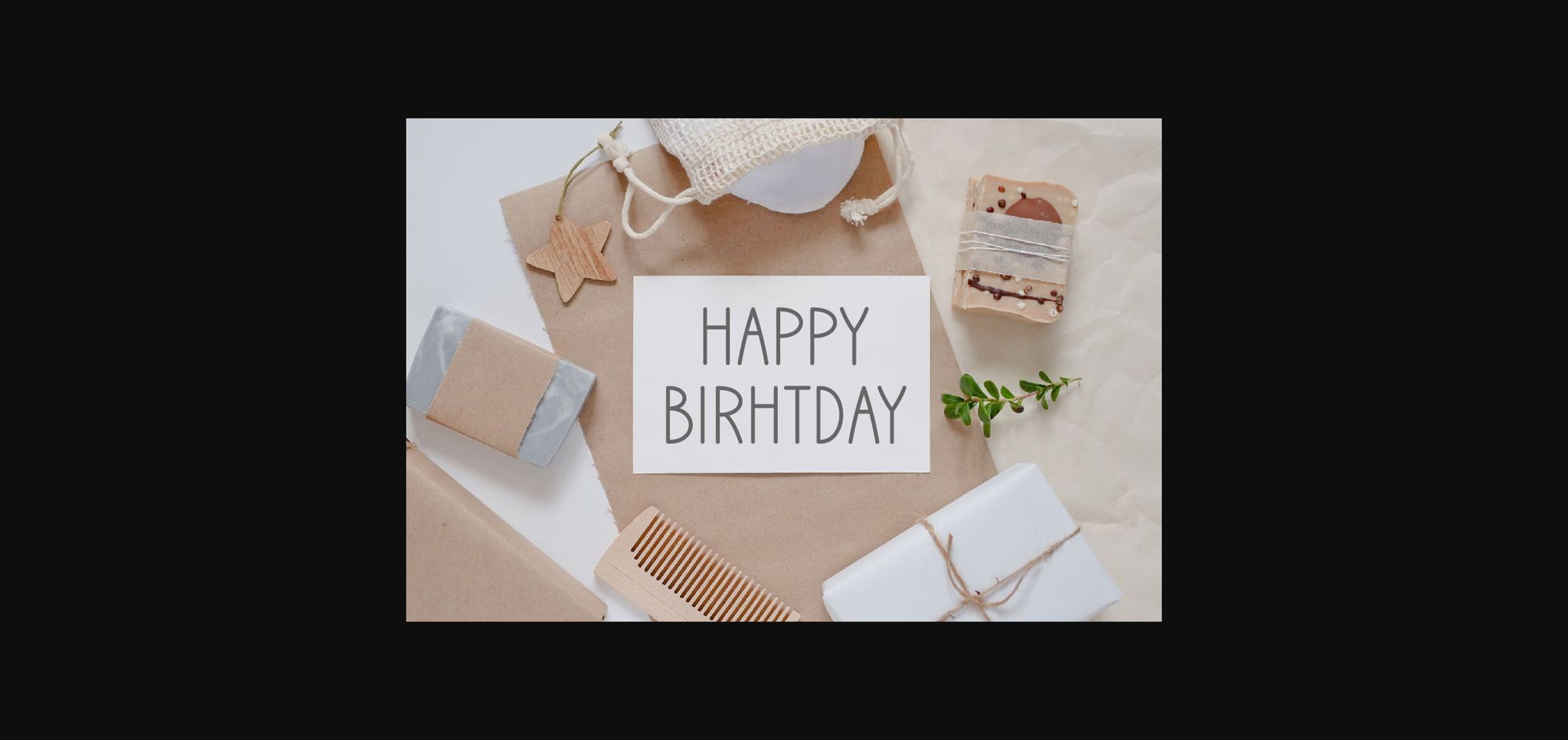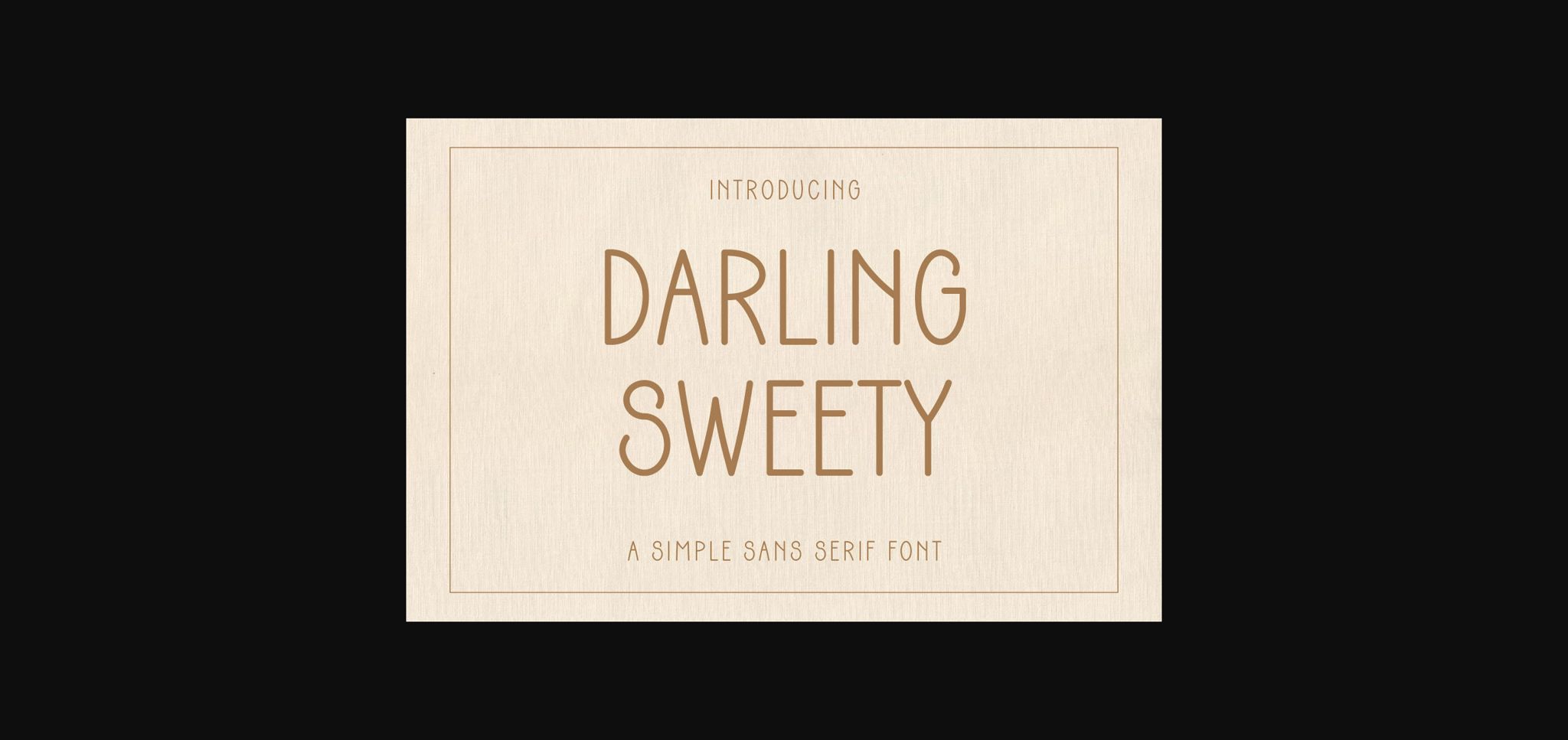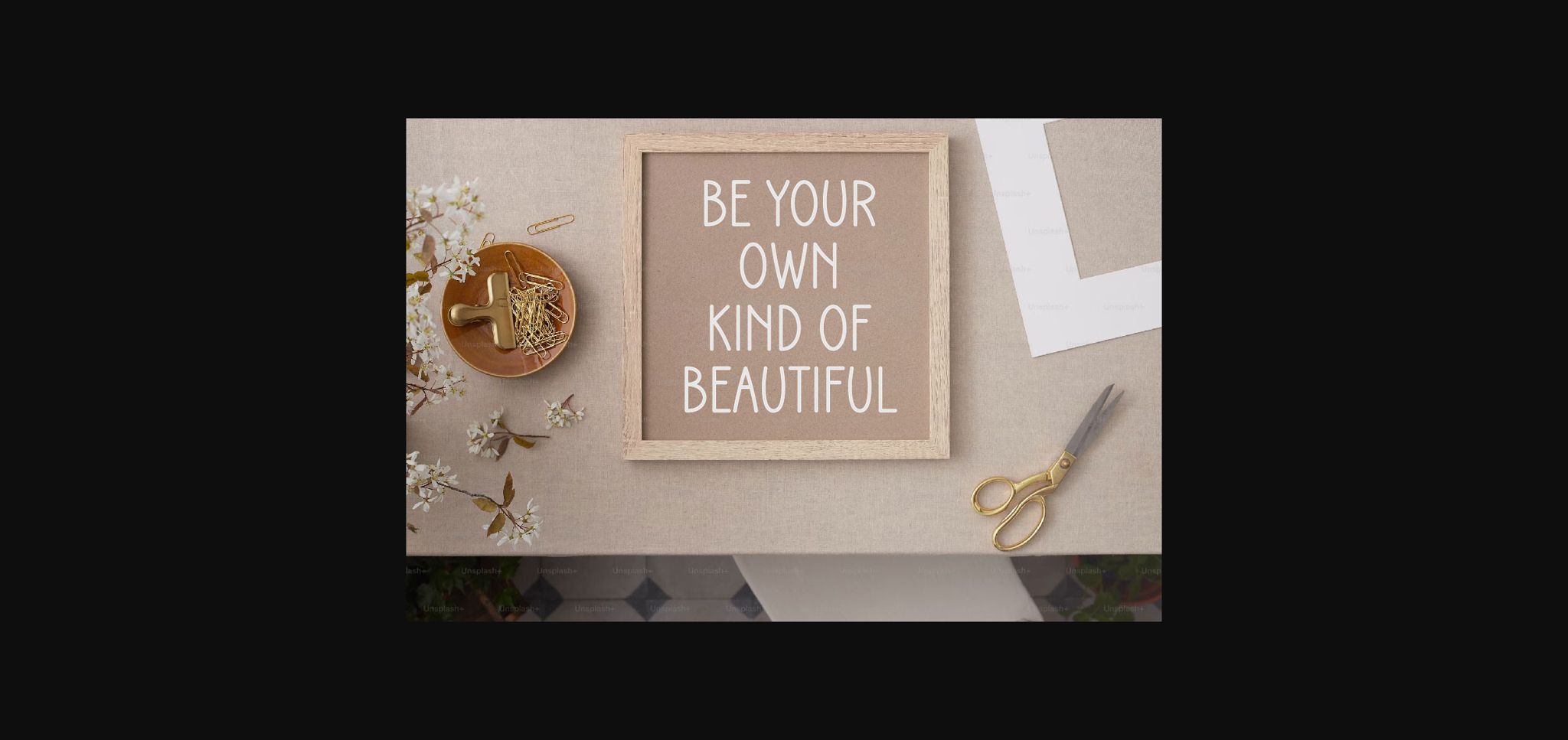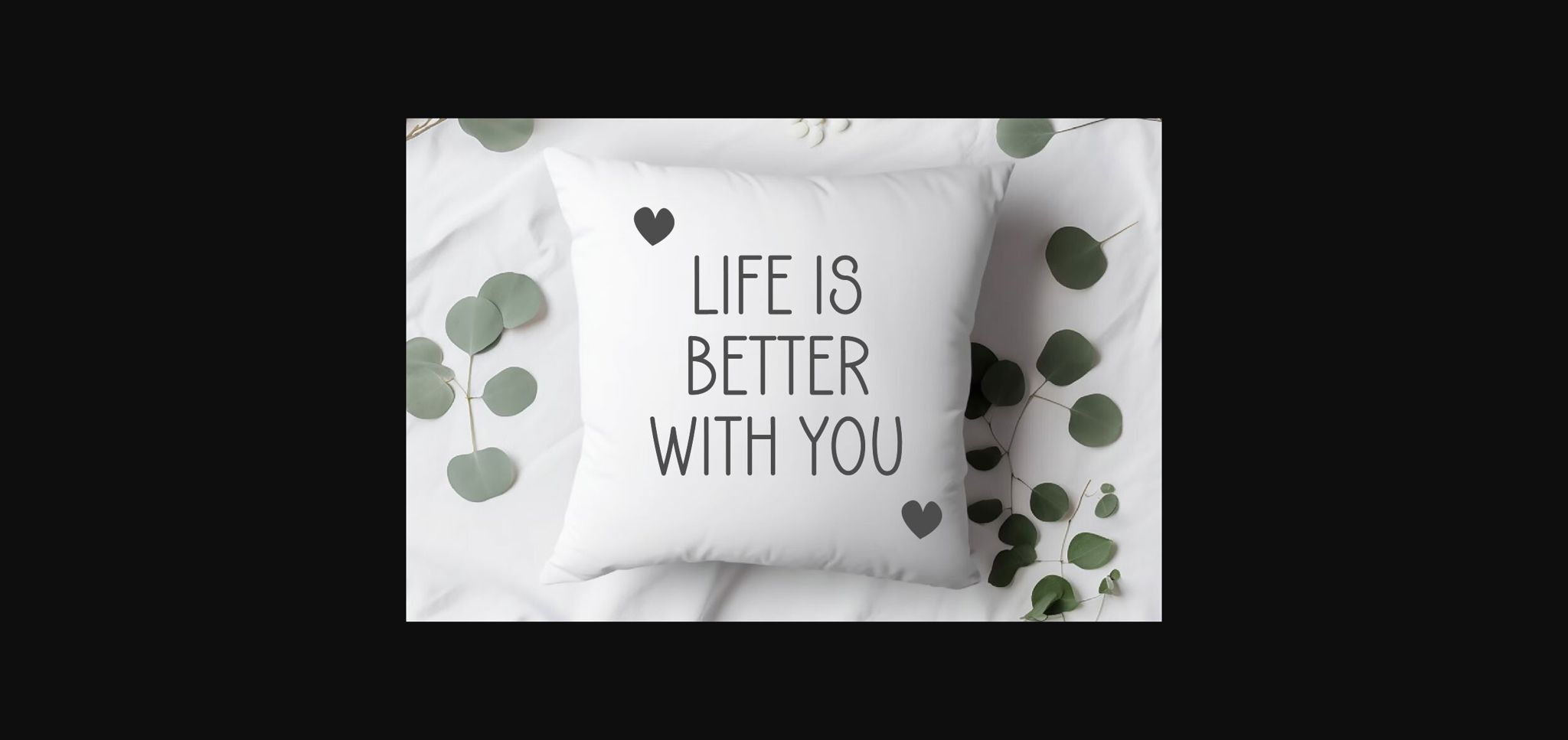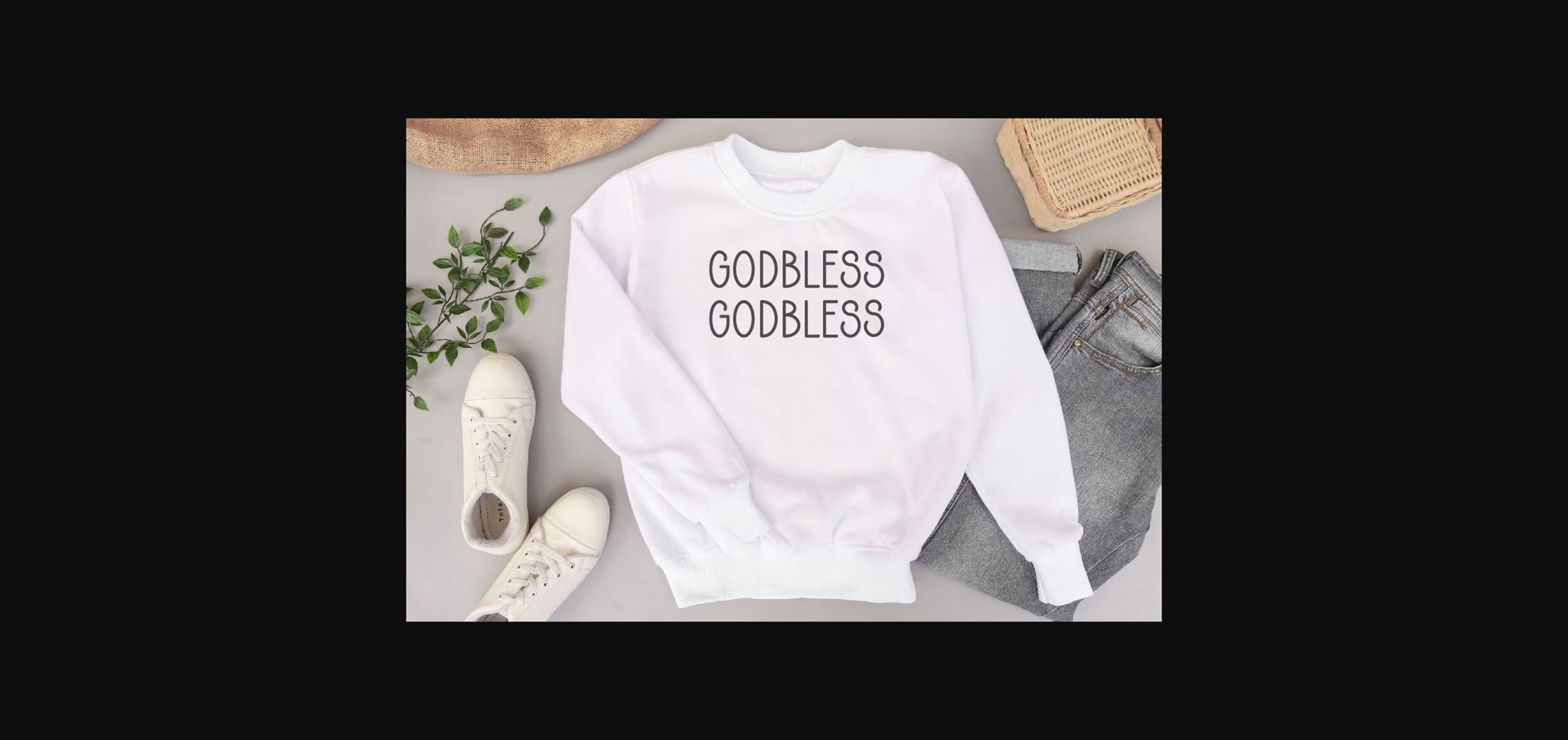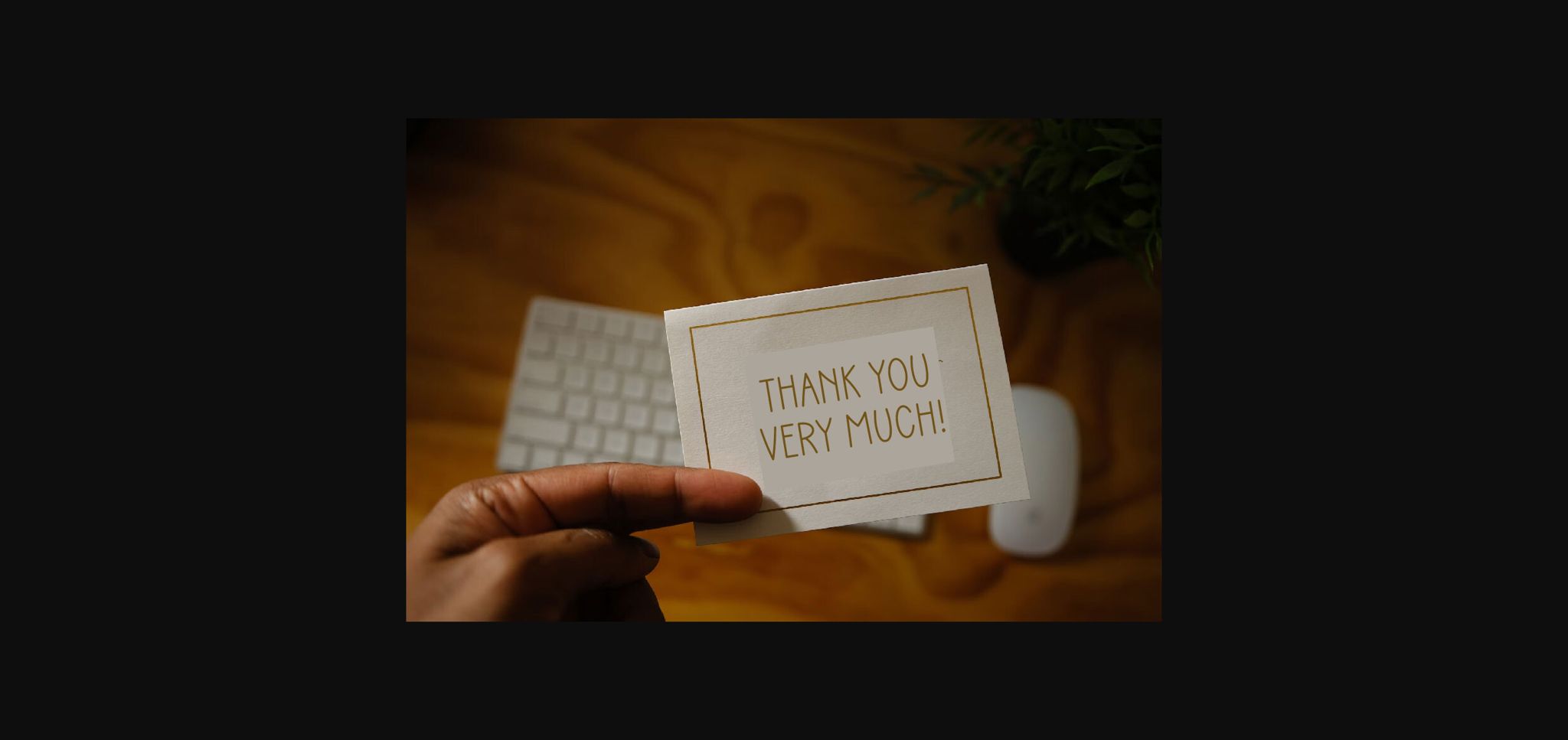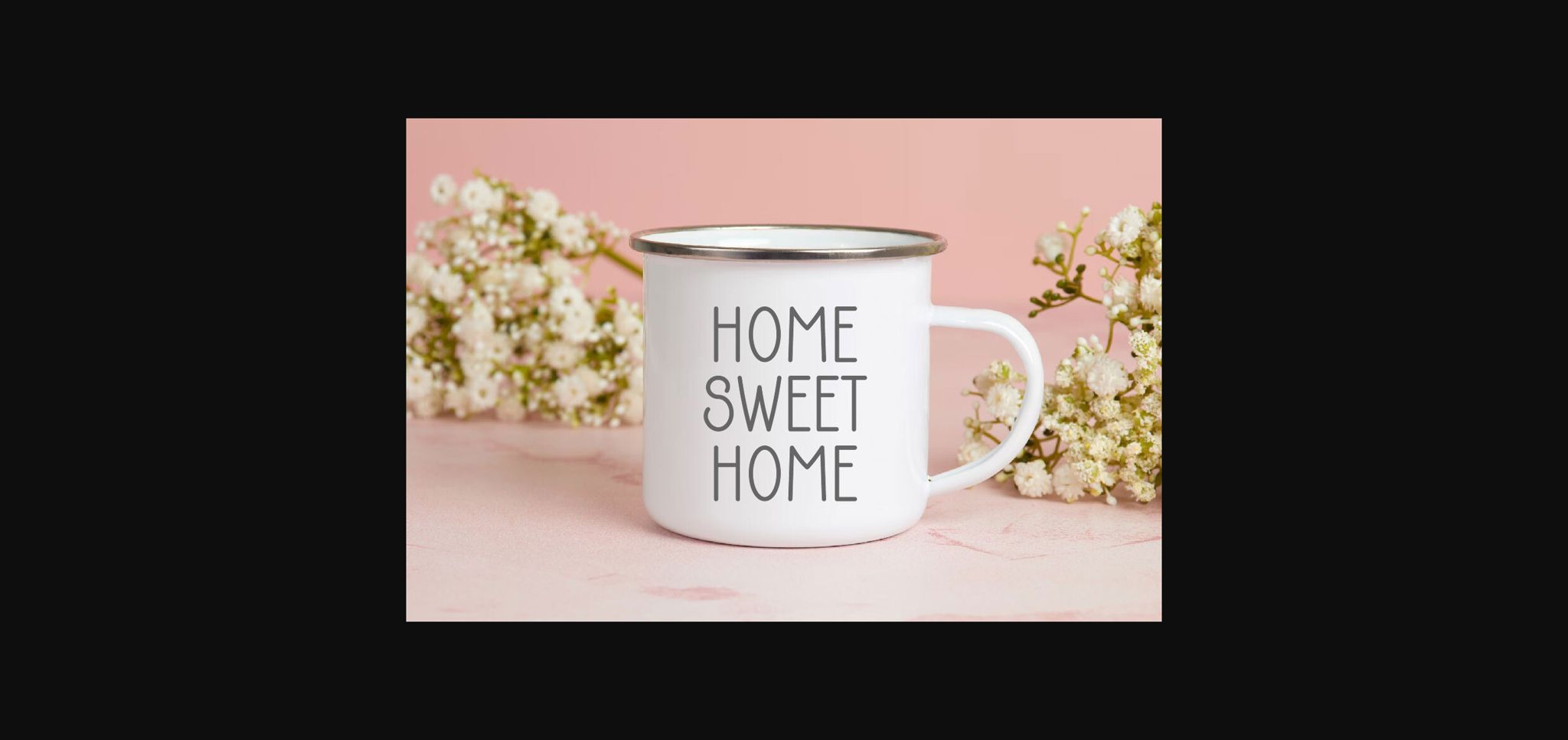
Darling Sweety Font
About Darling Sweety Font
Darling Sweety is a simple and smooth sans serif font. Beautiful and sweet, this font is perfect for craft design, wedding invitations, cards, blogs, poster, quotes, branding or any other design that might need aesthetic and personal touch!